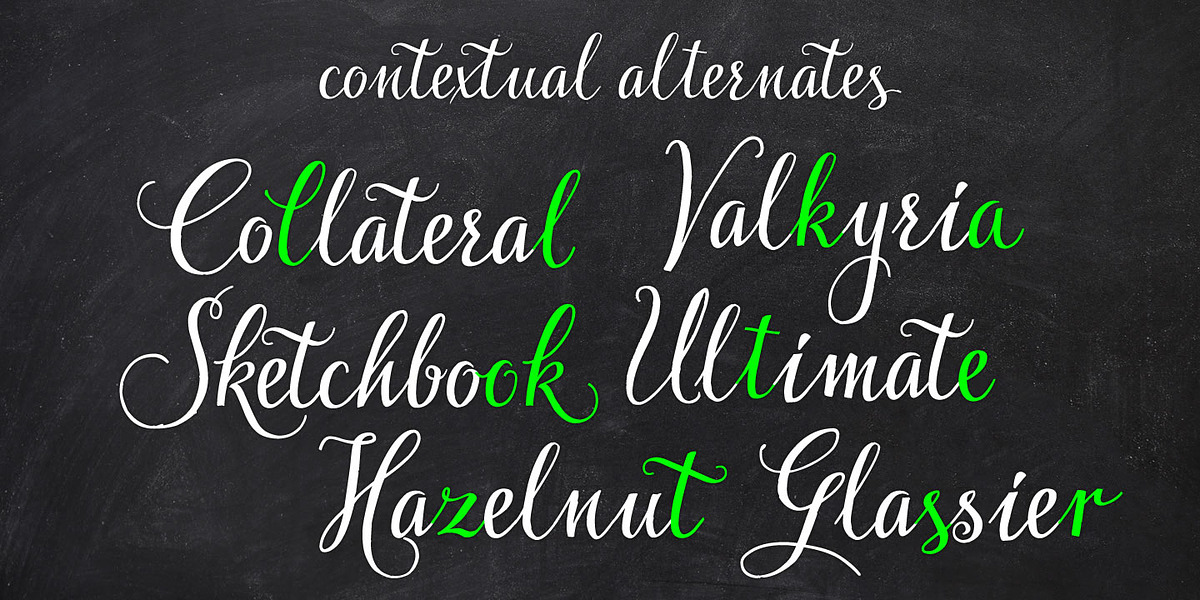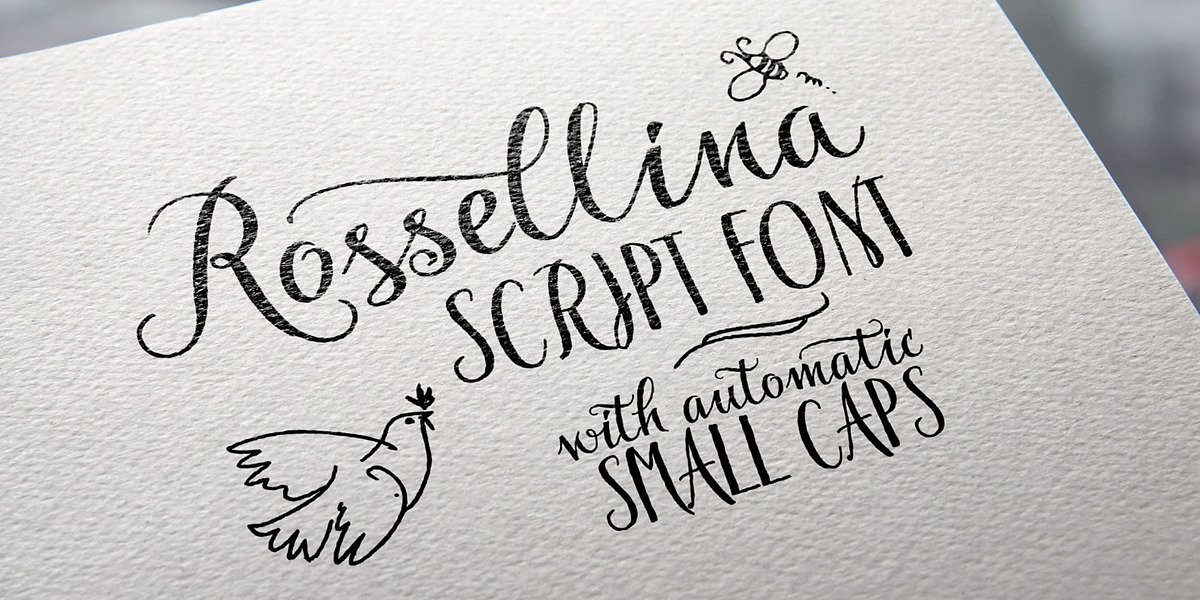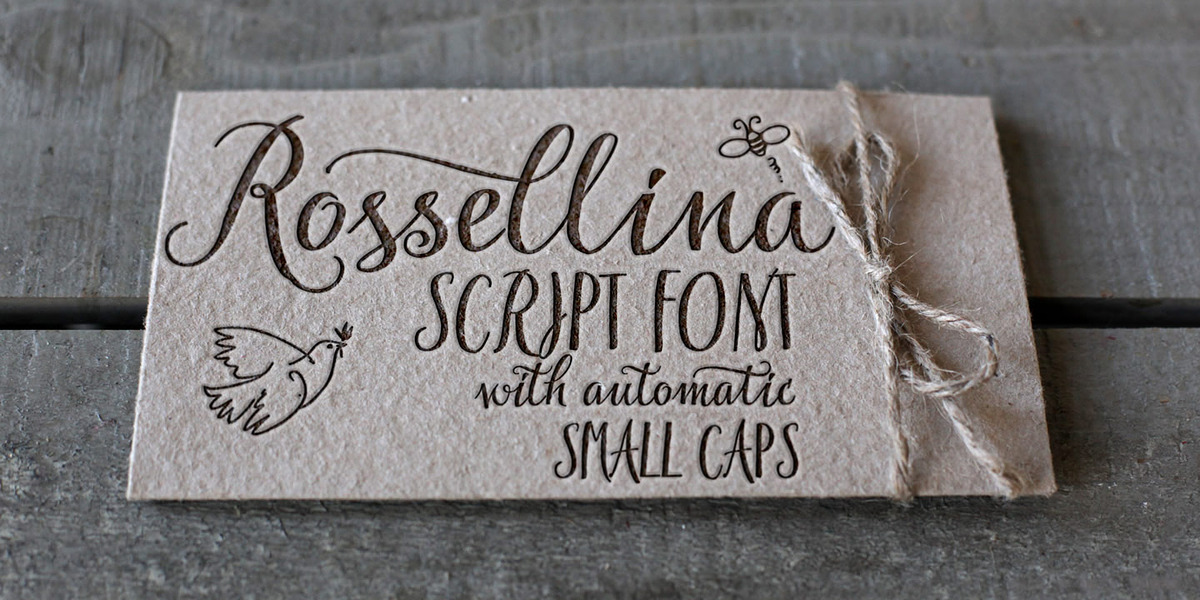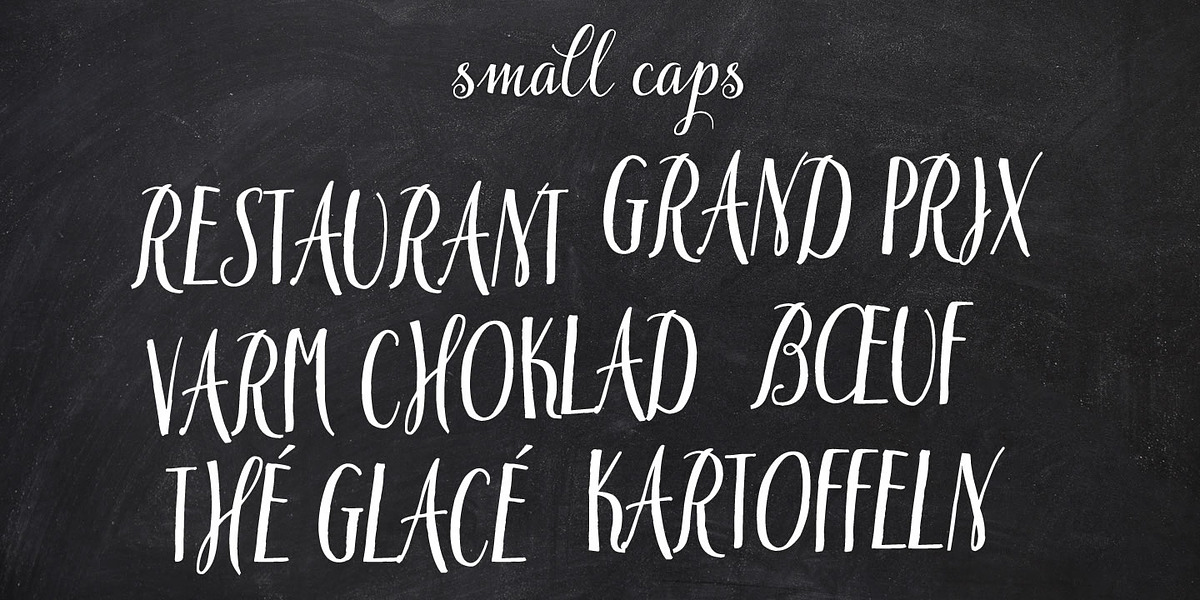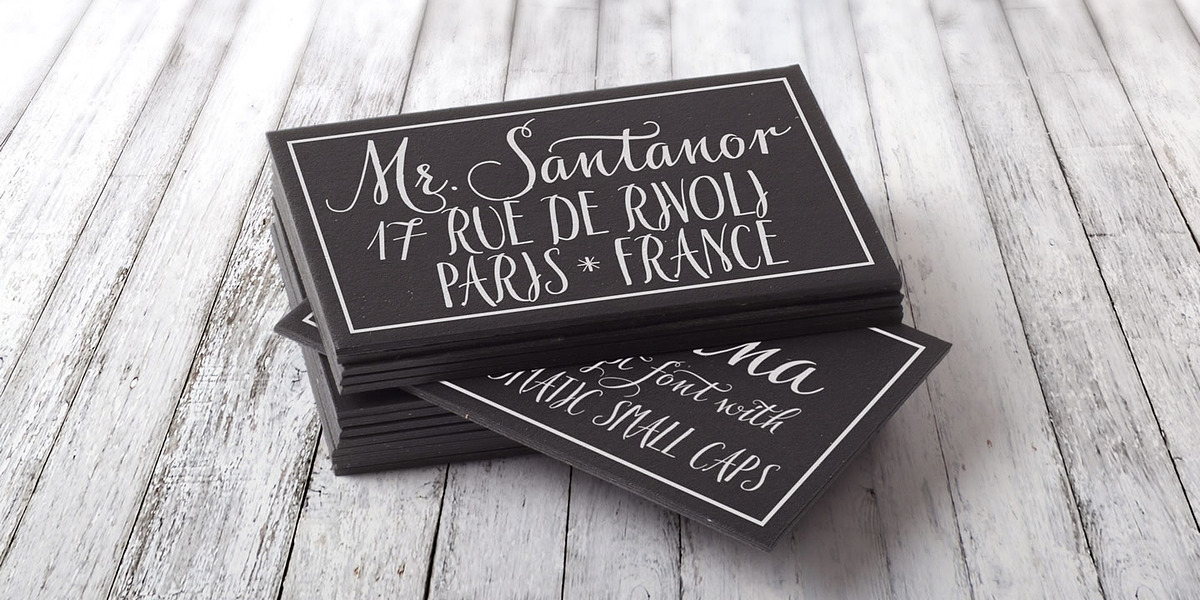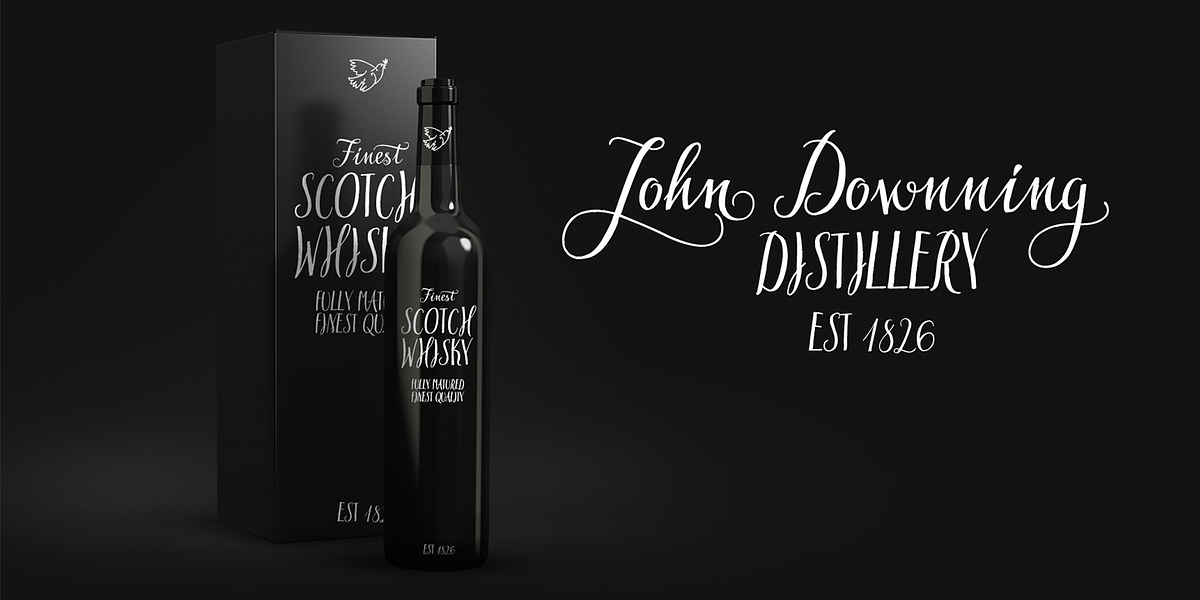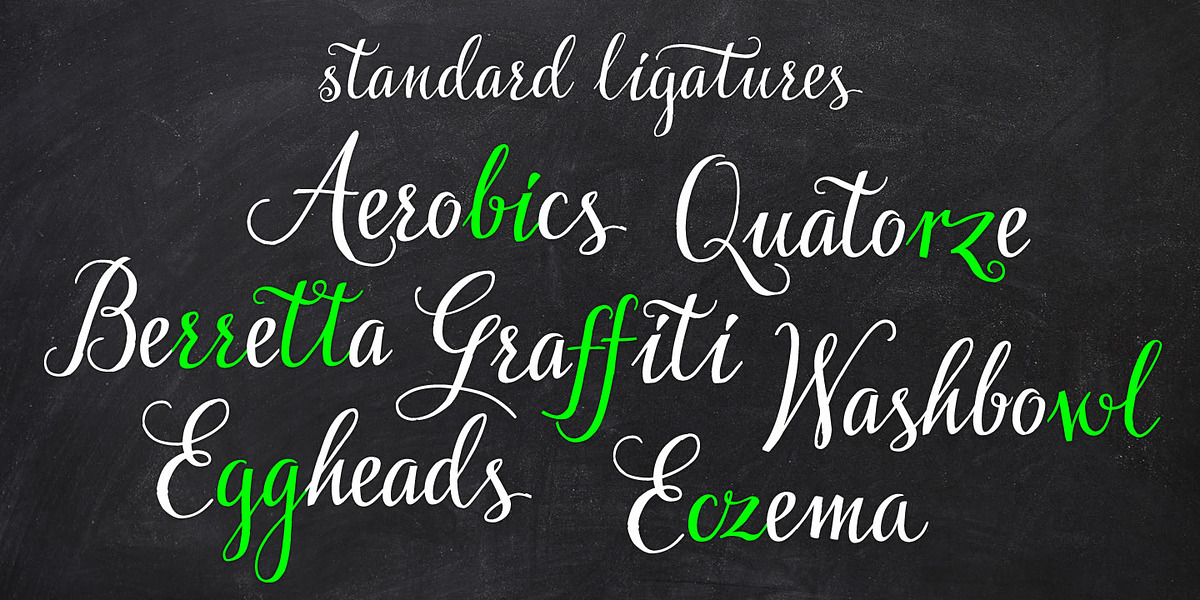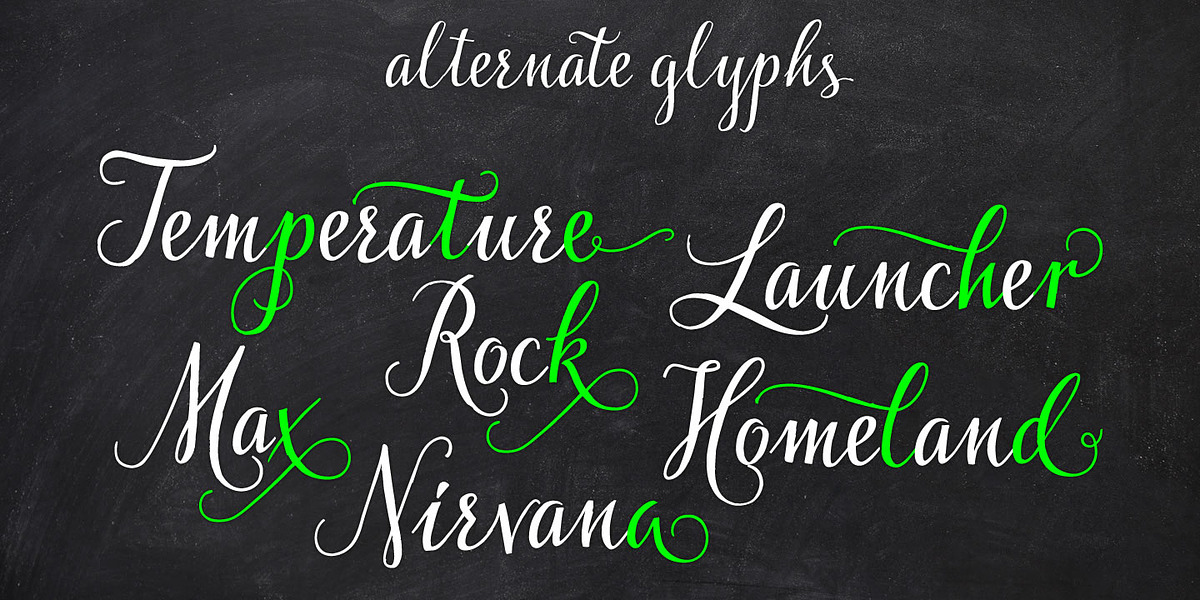
Rossellina
Rosselina is an elegant handwritten script font designed for a variety of applications. Its features include ligatures and contextual alternates that enhance readability and create a flowing appearance. The font supports multiple languages and includes both lowercase and uppercase characters. ()